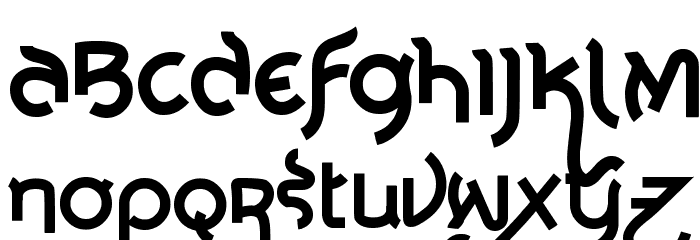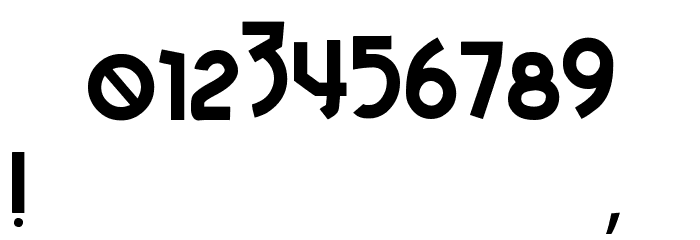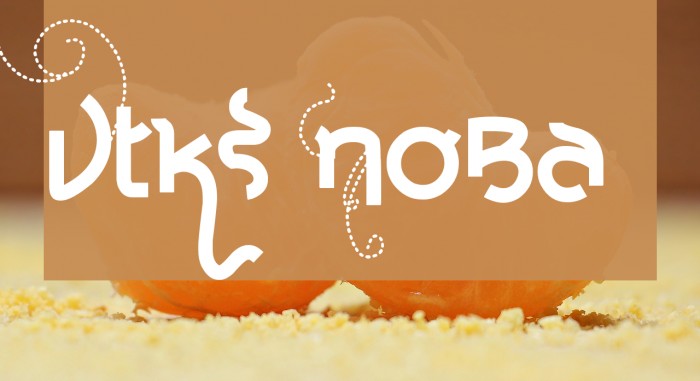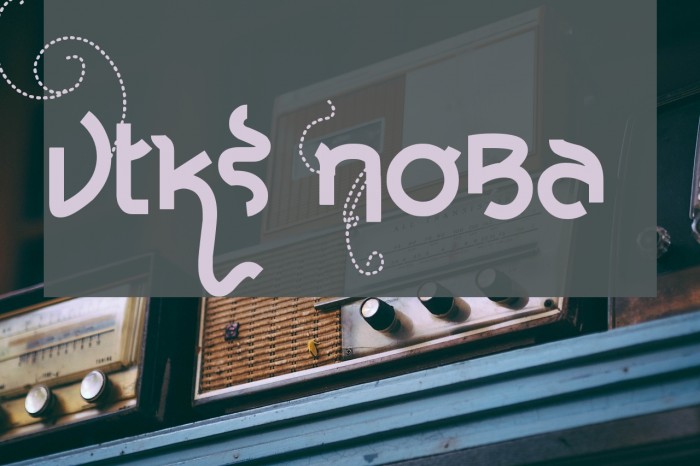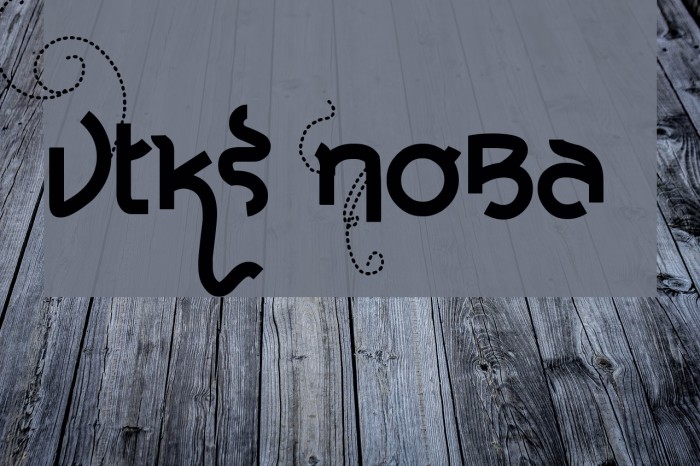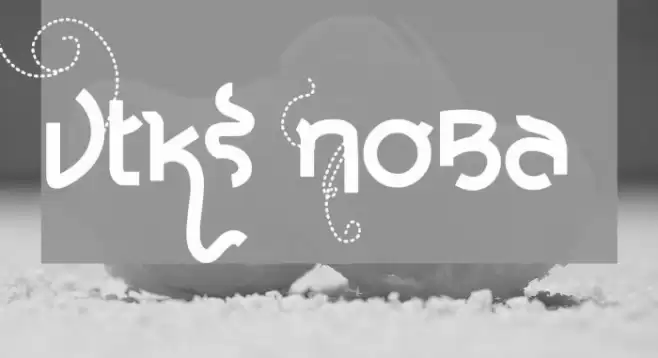
Vtks Noba Font
This font features a unique and artistic design with a decorative flair. The characters are bold and have a distinct, flowing style that incorporates swirling elements, giving it a whimsical and creative appearance. The uppercase and lowercase letters maintain a consistent style, with some characters having elongated or exaggerated features. The numbers are equally stylized, matching the overall aesthetic. This font is ideal for projects that require a touch of elegance and creativity, such as invitations, posters, or branding materials. Its artistic nature makes it stand out, capturing attention with its intricate details.
A bold, decorative font with artistic, swirling elements.
- Proposed Projects: Perfect for invitations, posters, branding, and creative projects.